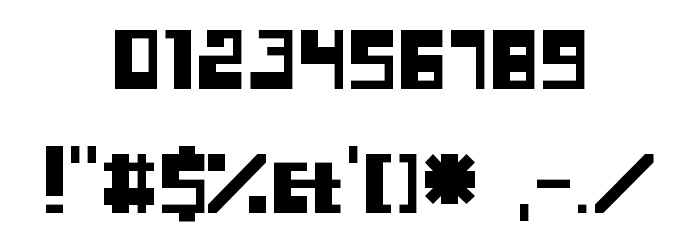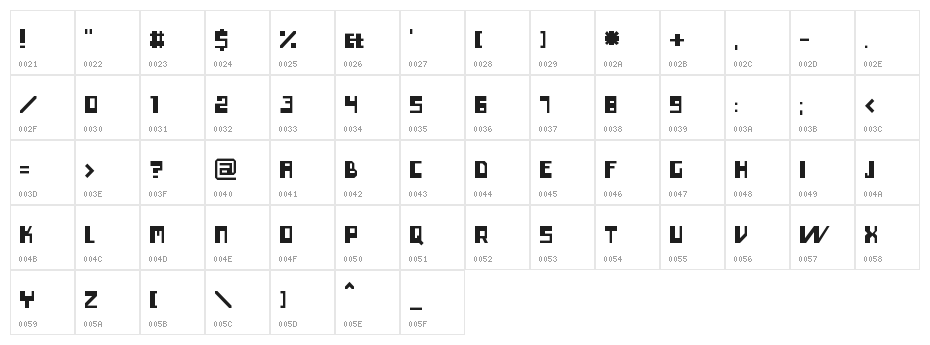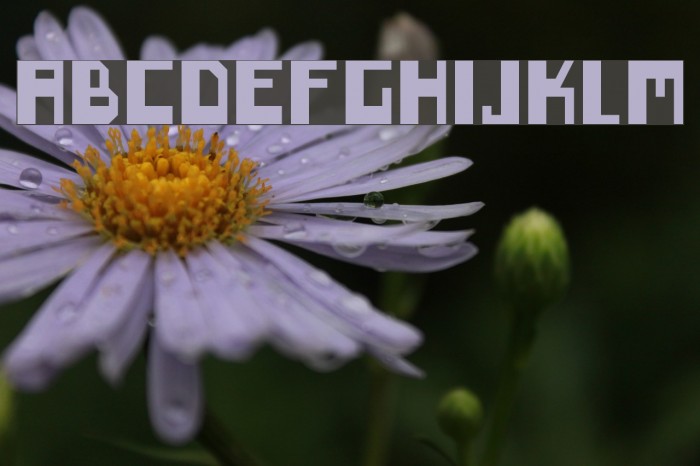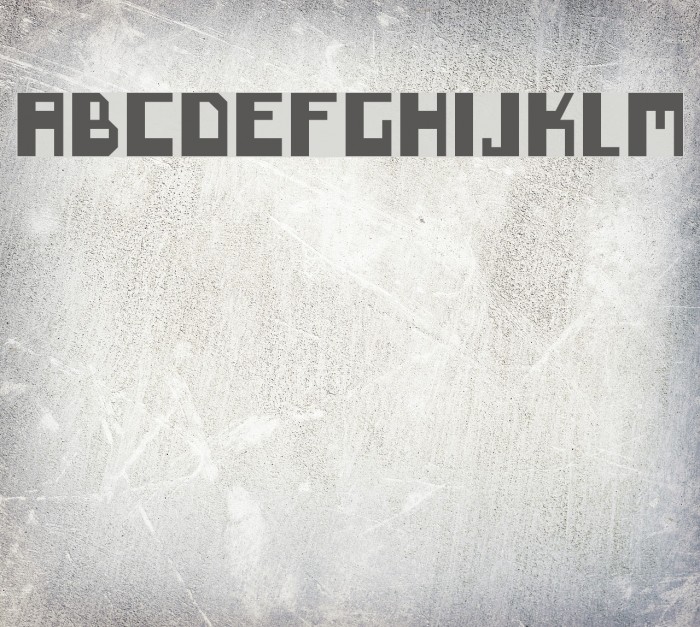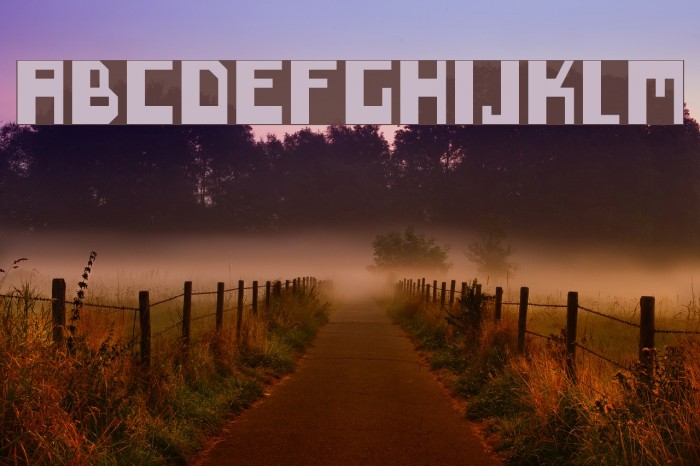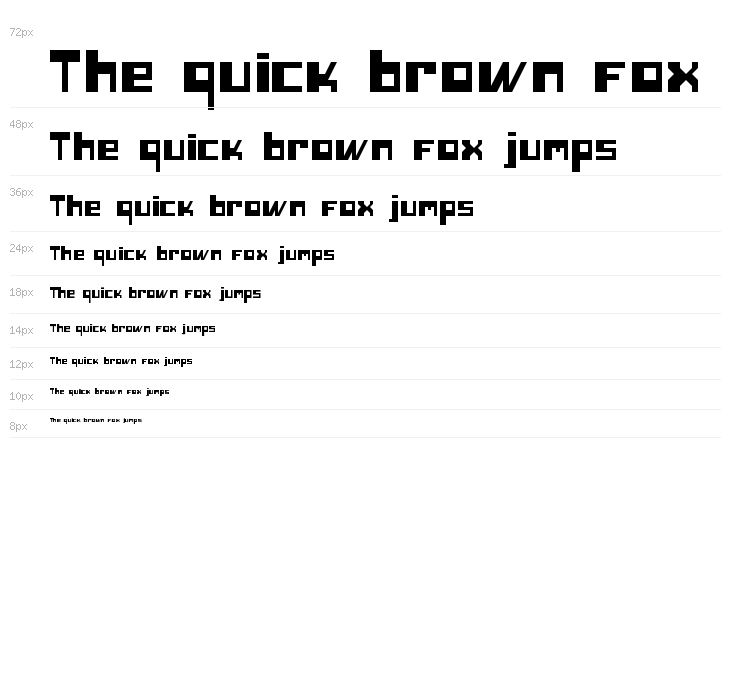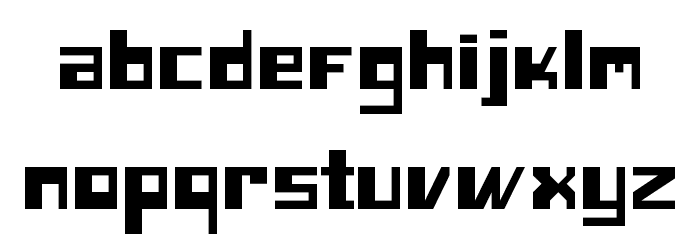
inero Font
inero Description
This font features a bold and geometric design with a strong, angular appearance. The characters are constructed with sharp edges and straight lines, giving it a futuristic and industrial feel. The uppercase letters are particularly striking, with a blocky and robust structure that commands attention. The lowercase letters maintain the same angular style, ensuring consistency across the typeface. Numbers and special characters are equally bold, with a design that complements the overall aesthetic. The font's unique style makes it ideal for projects that require a modern and edgy look.
| Proposed Projects | Ideal for branding, posters, video game graphics, and sci-fi themed projects. |